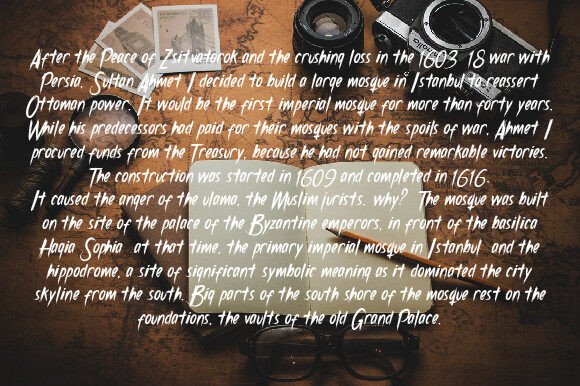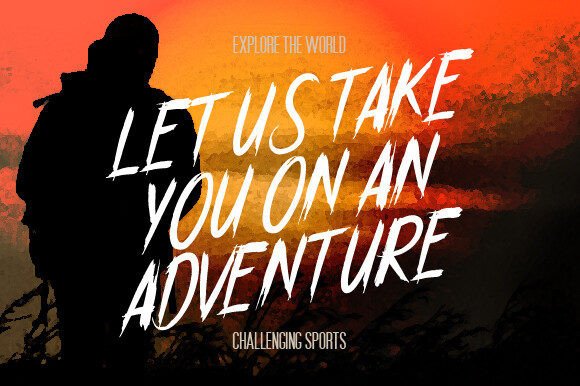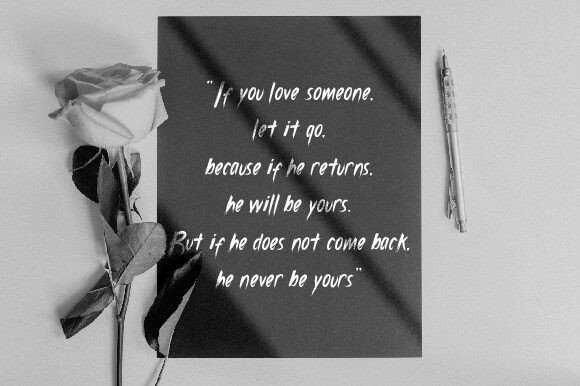
Introduction to Kuntilanak Font
Kuntilanak Brush Typeface is a sleek and rough handwritten font with a dry brush texture.
This texture is very detailed This font is perfect for logos, product branding, printable templates, posters, flyers, t-shirts, or overlay text onto any background image.
Key Features of Kuntilanak Font
Why Choose Kuntilanak Font?
Kuntilanak Font offers exceptional quality and versatility, making it a valuable addition to your design toolkit. Whether you’re creating for personal projects or commercial use, Kuntilanak Font delivers professional results.